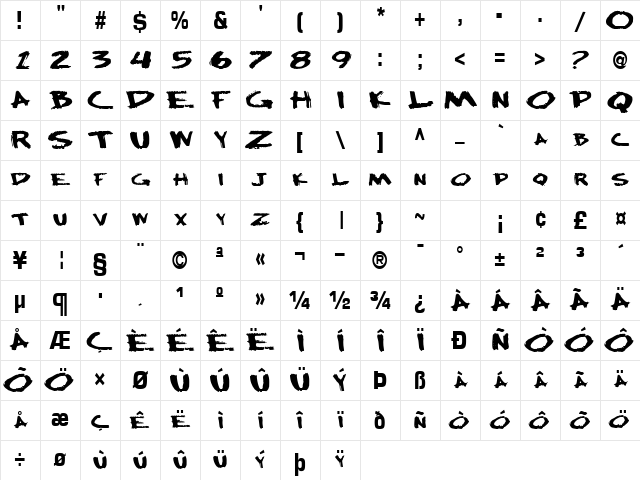
SplashFontStyle Regular
SplashFontStyle Family
SplashFontStyle Regular
Complete SplashFontStyle Regular glyph index. Displaying only characters natively supported by SplashFontStyle Regular font.
Design Context for SplashFontStyle
SplashFontStyle is a composed and adaptable typeface that performs quietly and consistently across a wide range of design contexts.
Pro Tip: Use SplashFontStyle in both headline and body roles to test its range before committing to a single application.